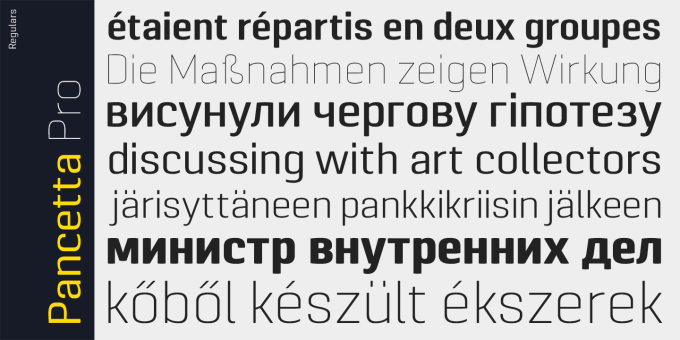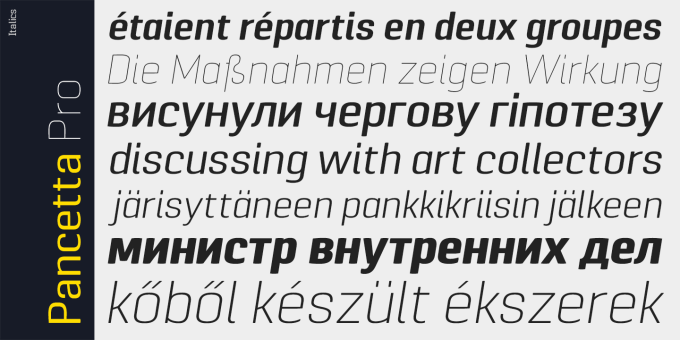
Pancetta Pro
Pancetta Pro is a squarish sans-serif typeface with semi-closed aperture and pillow-shaped terminals.
The shape of a pillow is furthermore used to enliven the boring horizontal stems which are very frequent in Cyrillic script, and to get rid of the right angles.